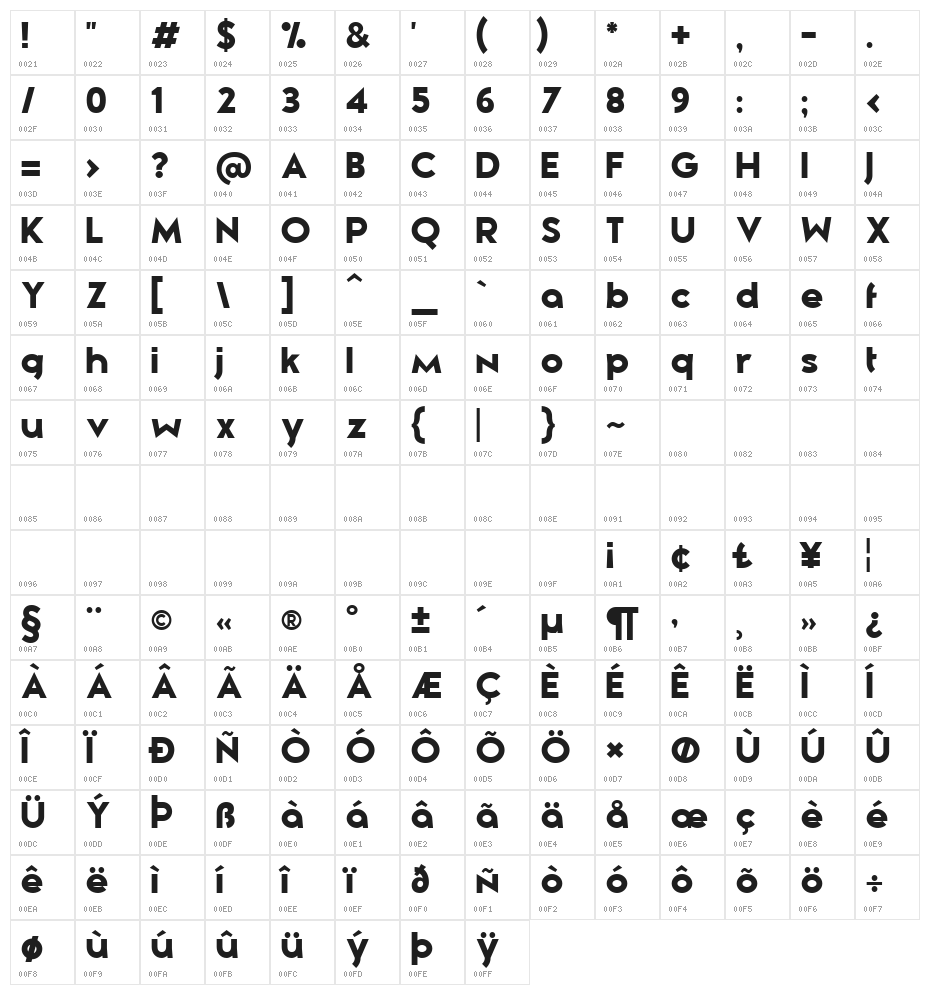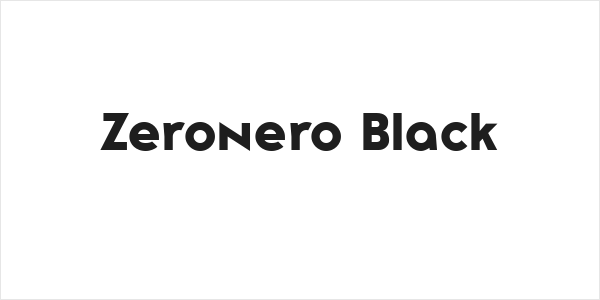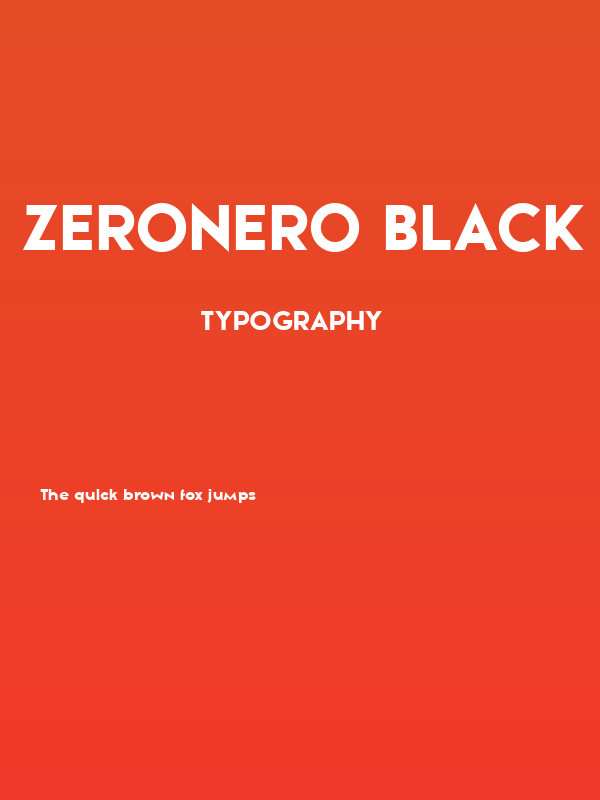
Zeronero Black Font
Zeronero Black Description
This font exhibits a bold and geometric style, characterized by its thick strokes and angular forms. The uppercase letters are particularly striking, with sharp edges and a strong presence. The lowercase letters maintain a consistent weight, offering a harmonious balance with the uppercase. The numerals are robust and clear, making them highly legible. Special characters are designed with the same boldness, ensuring they stand out. The overall design is modern and impactful, suitable for making a statement in any design project.
| Proposed Projects | Ideal for branding, posters, headlines, and any project requiring a strong visual impact. |